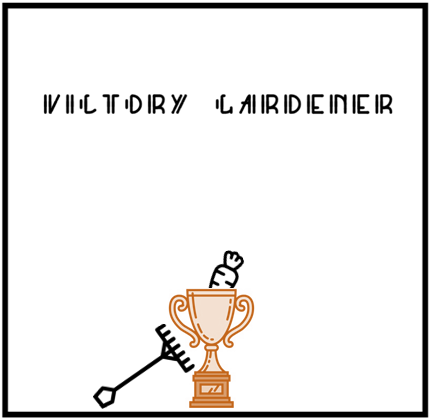
another soft deco font
Smooth and nice font. Some glyphs are somewhat confusing to a careless reader like me (C-L, O-D, S-J, R-Q...) but I like it.
in the future creating such confusions with letters will hopefully be avoided~